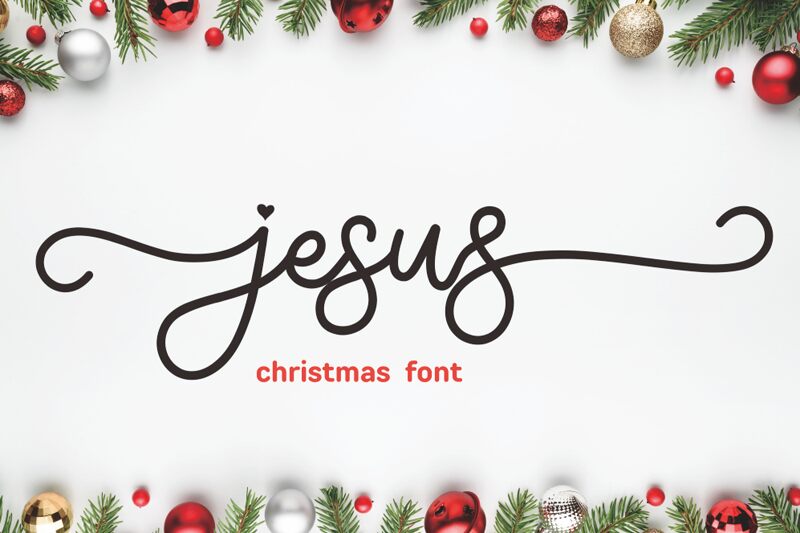
Jesus font is presented by Mozatype as a free font focused on creating captivating headline styles. Its appearance is smooth, decorative, and elegant in a calligraphic style. Its expressive character makes it an ideal choice for displaying cheerful and warm design projects. Perfect for covering all holiday and festive-related demands, including invitations, greeting cards, branding projects, and many more.
The contemporary design of Jesus is suitable for a wide range of web, digital, and print projects. Use it for traveling, food and beverage, wellness, blogs, social media, posters, titles, covers, and magazine design projects.